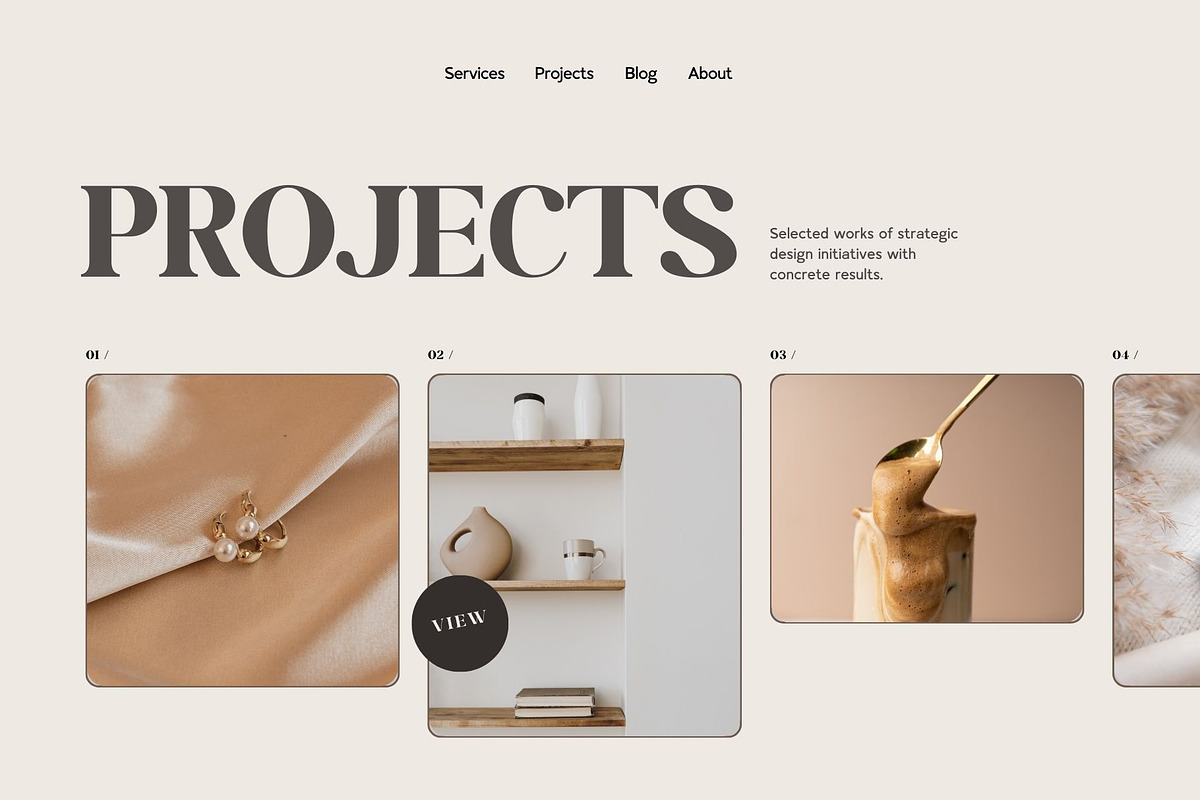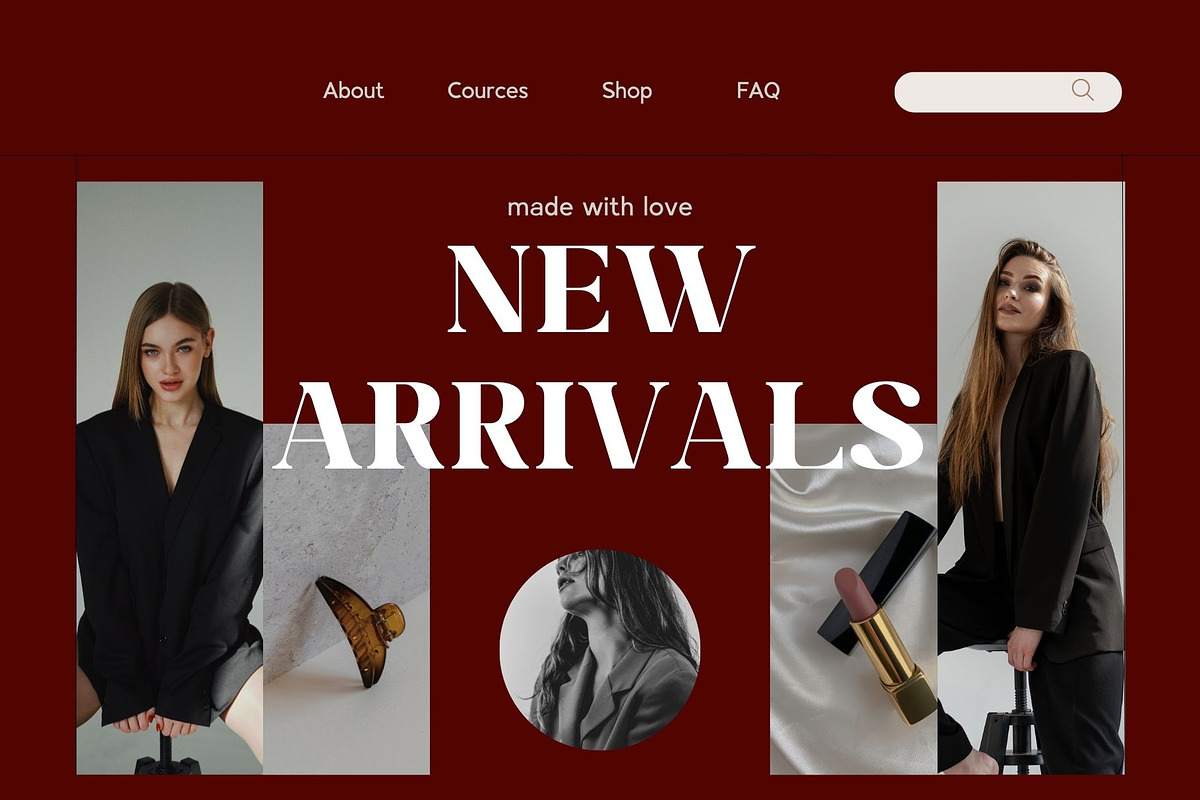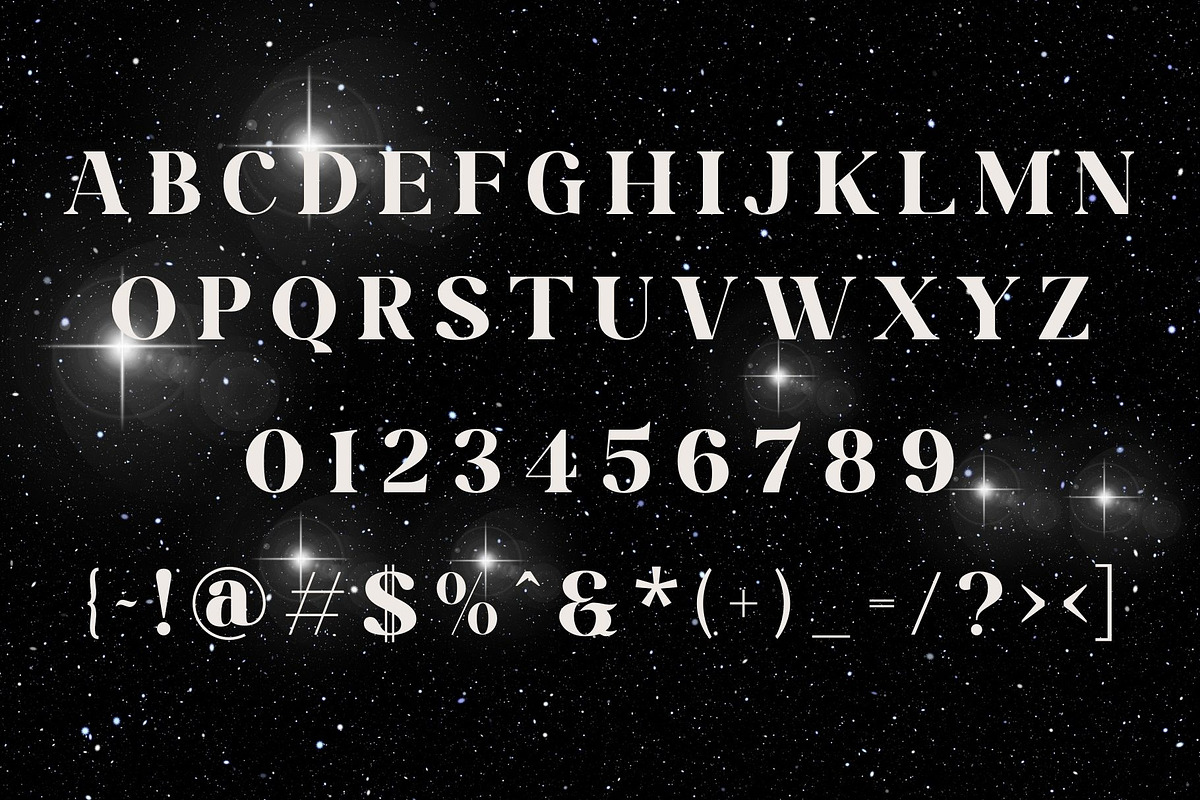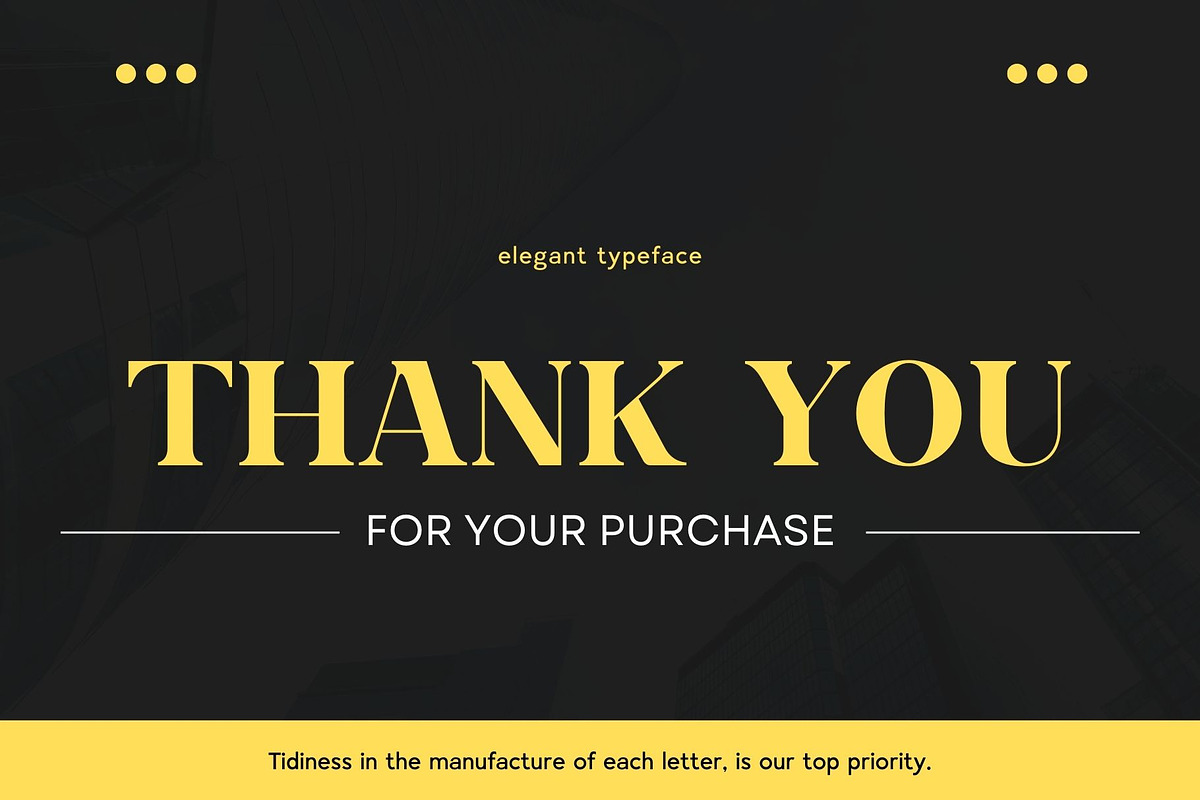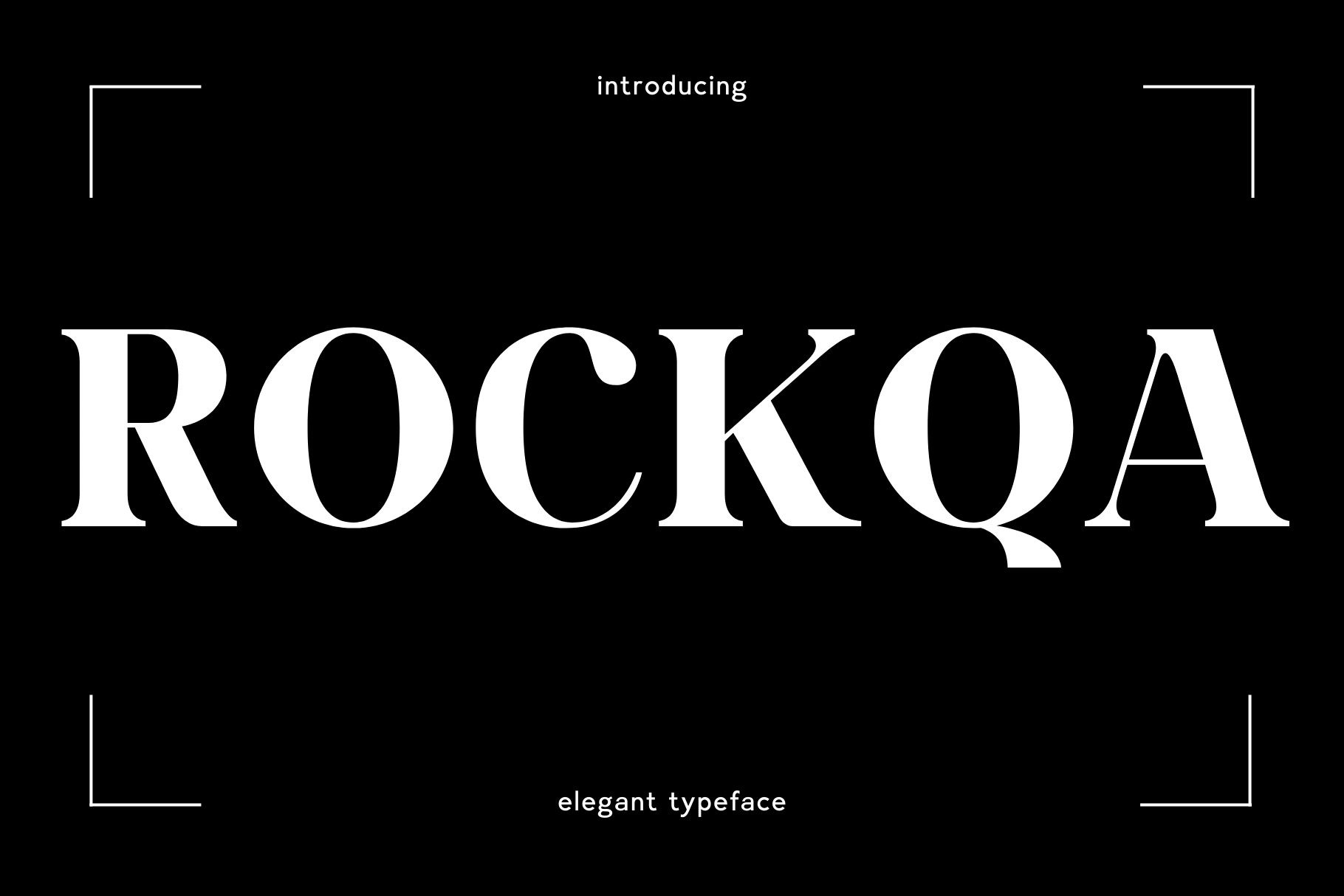
ROCKQA - Elegant Serif Typeface
Introducing 'Rockqa' Font:
Meet "Rockqa," a modern and elegant serif font that emanates sophistication and style. With its refined letterforms and timeless appeal, Rockqa injects a touch of class into your projects. Ideal for achieving a sleek and polished look in invitations, branding, or editorial designs, Rockqa allows you to elevate your typography. Let its clean lines and graceful curves bring a sense of modern elegance to your visual compositions, adding a touch of timeless charm to your creative endeavors.
Ideal for:
- Beauty and Fashion
- Elegant Creations
- Versatile Applications
- Web Design Projects
- Invitation Cards
- Ready for Creative Expression
- Immaculately Crafted Letters